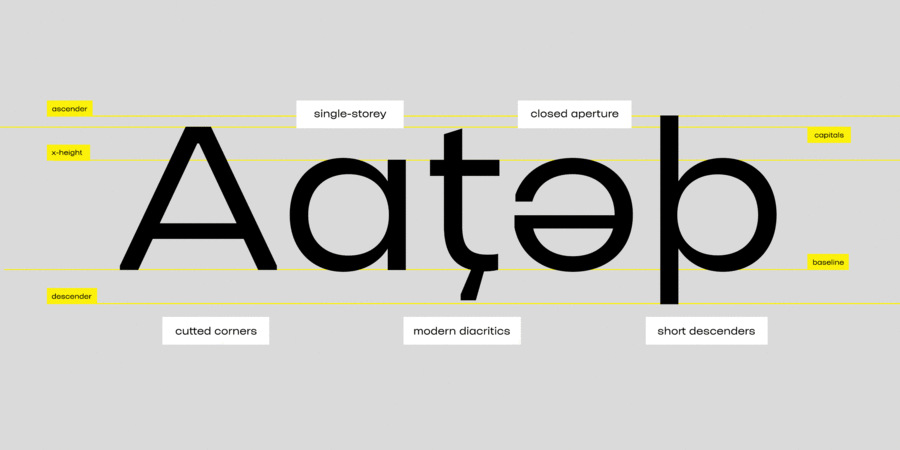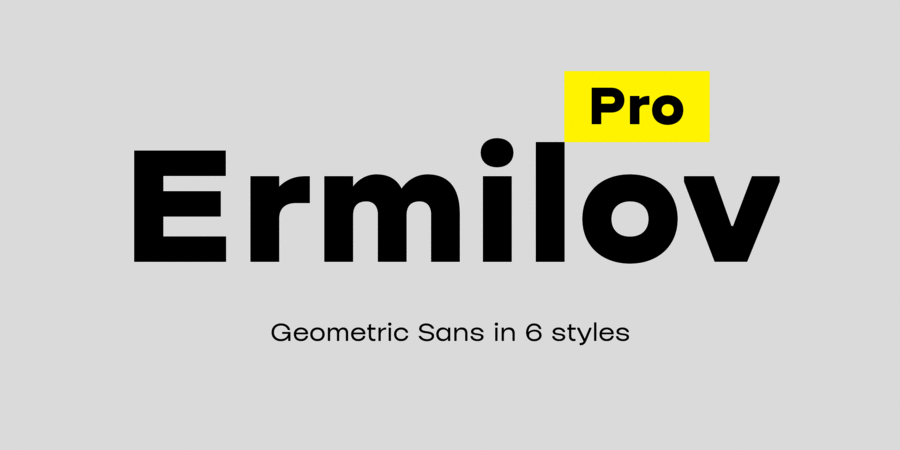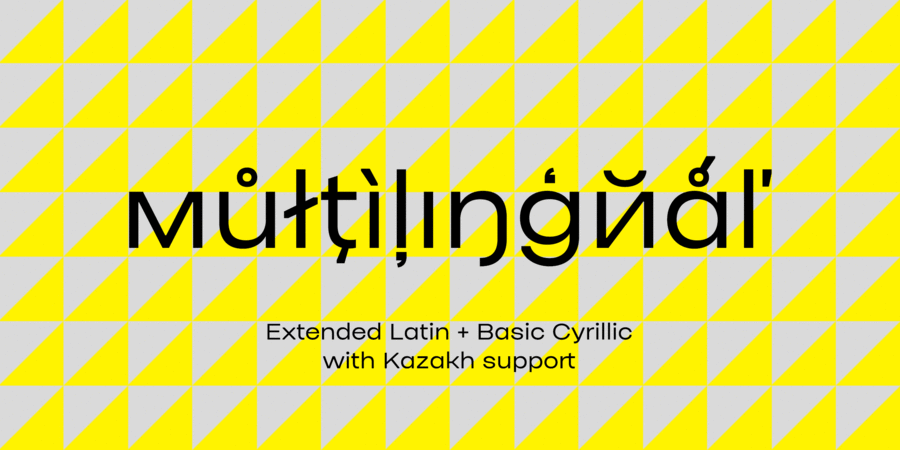
Ermilov Pro (6 fonts)
Ermilov Pro is a modern massive geometric sans typeface with special bevels in the corners of the letters. Its creation was inspired by the works of the Ukrainian constructivist artist Vasyl Yermylov. The first version of Ermilov Bold was created by Kyrylo Tkachov and Banda Agency for the international marketing campaign Ukraine NOW in 2018. Font received a second wind in 2022 after the start of a full-scale russian war in Ukraine. For international communication, an extended Latin symbols was absolutely necessary.
And finally, for the third time, AlfaBravo returned to this typeface to add light weights, Ukrainian alternates, ligatures and turn Ermilov into a full-fledged typeface for a wide range of tasks from book covers to websites. The typeface was designed by Kyrylo Tkachov and Serhii Makarenko in 2025. The quick brown fox jumps over the lazy dog